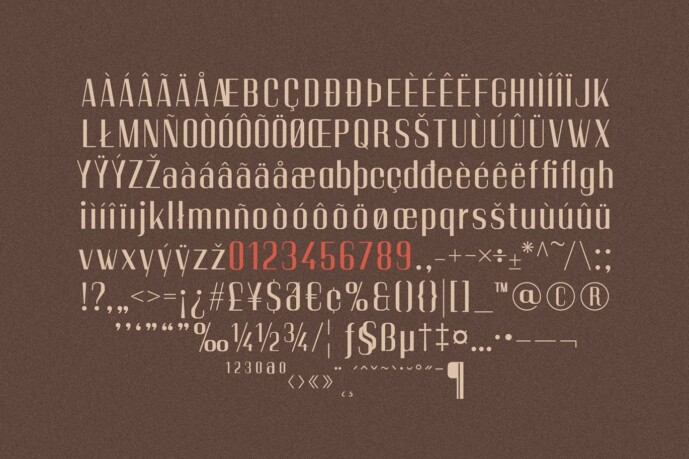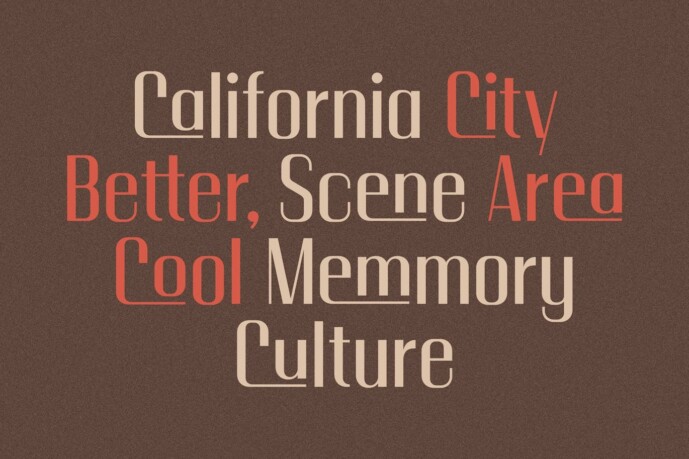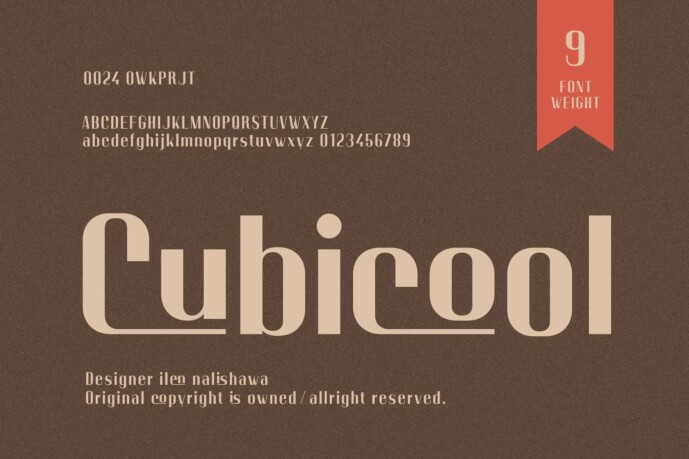
Cubicool Font
Cubicool Font is a font that has a modern style but adapts very well to retro styles. This font has 9 weights and comes with some nice ligatures . Cubicool has very strong contrast, remains easy to read in body text and short sentences and also works well for logos and headlines.